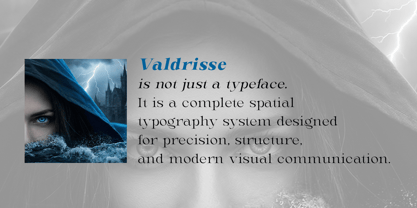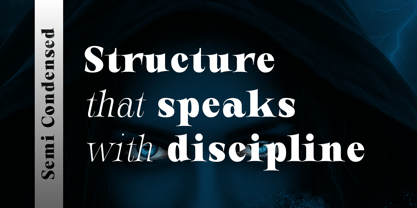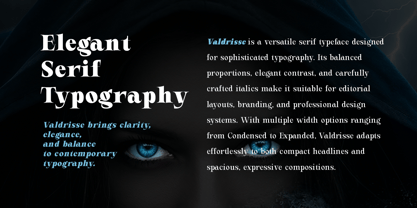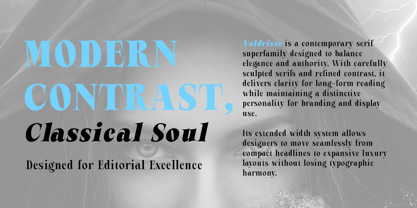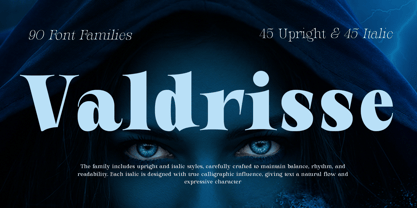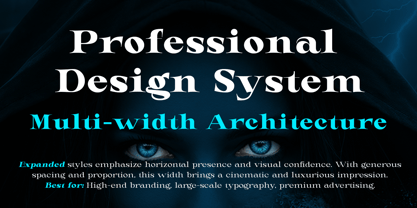
Valdrisse
by Jorsetype
The Valdrisse Font Family was designed by Ront Jorse and published by Jorsetype. Valdrisse contains 90 styles and family package options. More about this family
Valdrisse is a refined and versatile serif typeface designed for elegant typography and strong visual hierarchy. Blending classic serif structure with modern proportions, Valdrisse delivers clarity, sophistication, and flexibility across a wide range of design needs. The family includes upright and italic styles, carefully crafted to maintain balance, rhythm, and readability. Each italic is designed with true calligraphic influence, giving text a natural flow and expressive character. Valdrisse is organized into five width categories to provide maximum typographic control: Condensed – Tall, compact proportions ideal for headlines, editorial layouts, and space-saving designs. Semi Condensed – Slightly narrower with improved readability while still maintaining a tight visual presence. Normal – The core width of the family, perfectly balanced for body text, books, and long-form reading. Semi Expanded – A more open structure that enhances legibility and adds a graceful, contemporary feel. Expanded – Wide and expressive, perfect for impactful titles, branding, and large display typography. With its harmonious curves, sharp serifs, and elegant contrast, Valdrisse works beautifully in editorial design, branding, luxury packaging, magazines, advertising, and professional typography systems. Whether used for expressive headlines or refined body text, Valdrisse offers a complete typographic solution with timeless character and modern precision.